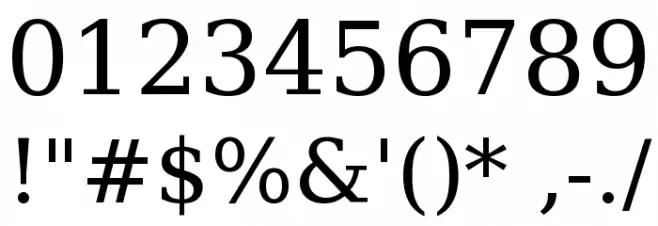
IranianSerif Font
IranianSerif Description
This font features a classic serif style with a modern twist, characterized by its elegant and refined appearance. The serifs are prominent yet not overly exaggerated, providing a balanced and sophisticated look. The uppercase letters are bold and commanding, while the lowercase letters maintain a graceful flow. The numerals are clear and distinct, ensuring readability. Special characters are well-integrated, maintaining the overall aesthetic of the font. This font is versatile, suitable for both formal and contemporary designs, making it ideal for a variety of applications.
A classic serif font with a modern twist, offering elegance and readability from Serif fonts.
- Proposed Projects: Ideal for editorial design, book covers, branding, and formal invitations.
- Overall Style: Classic